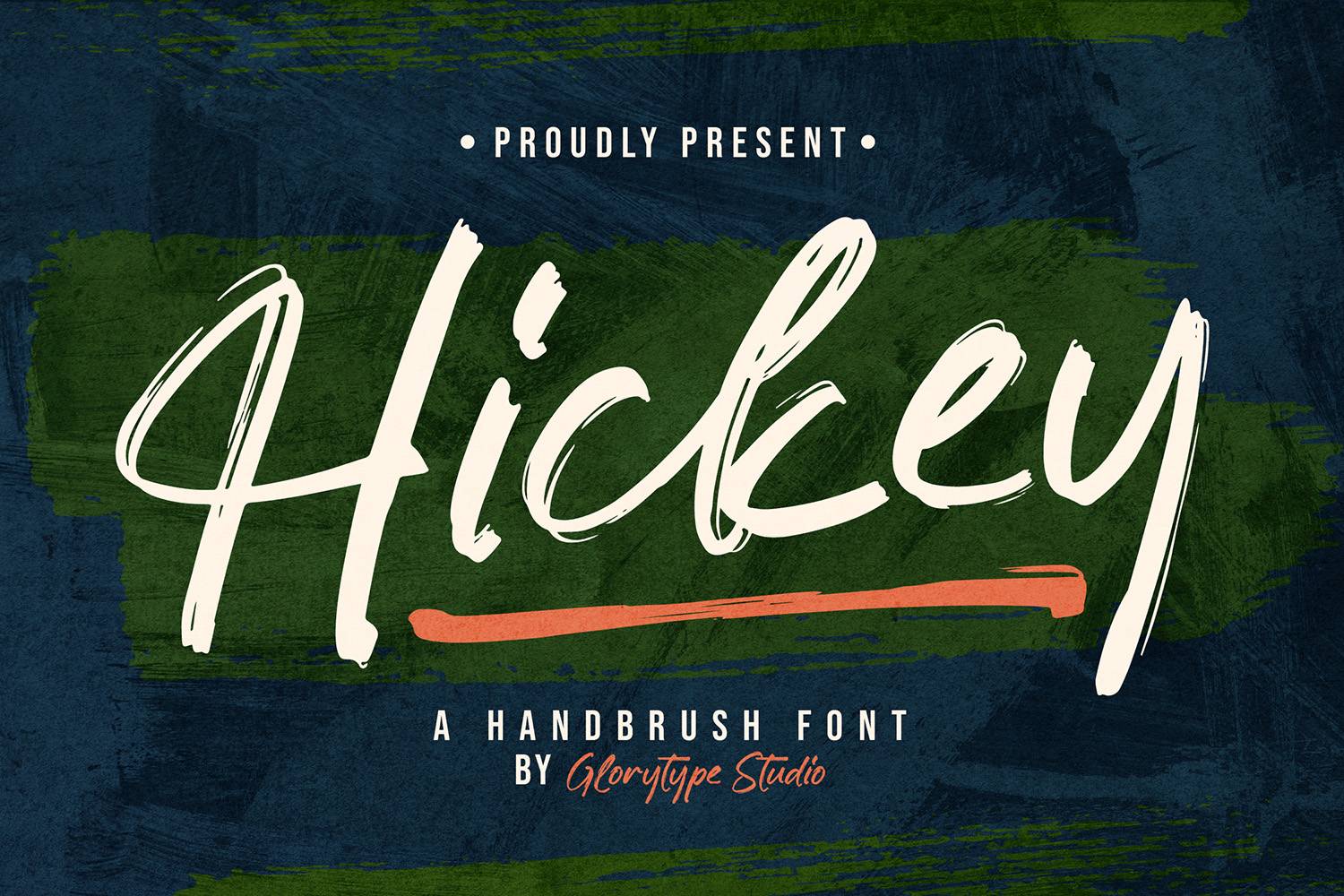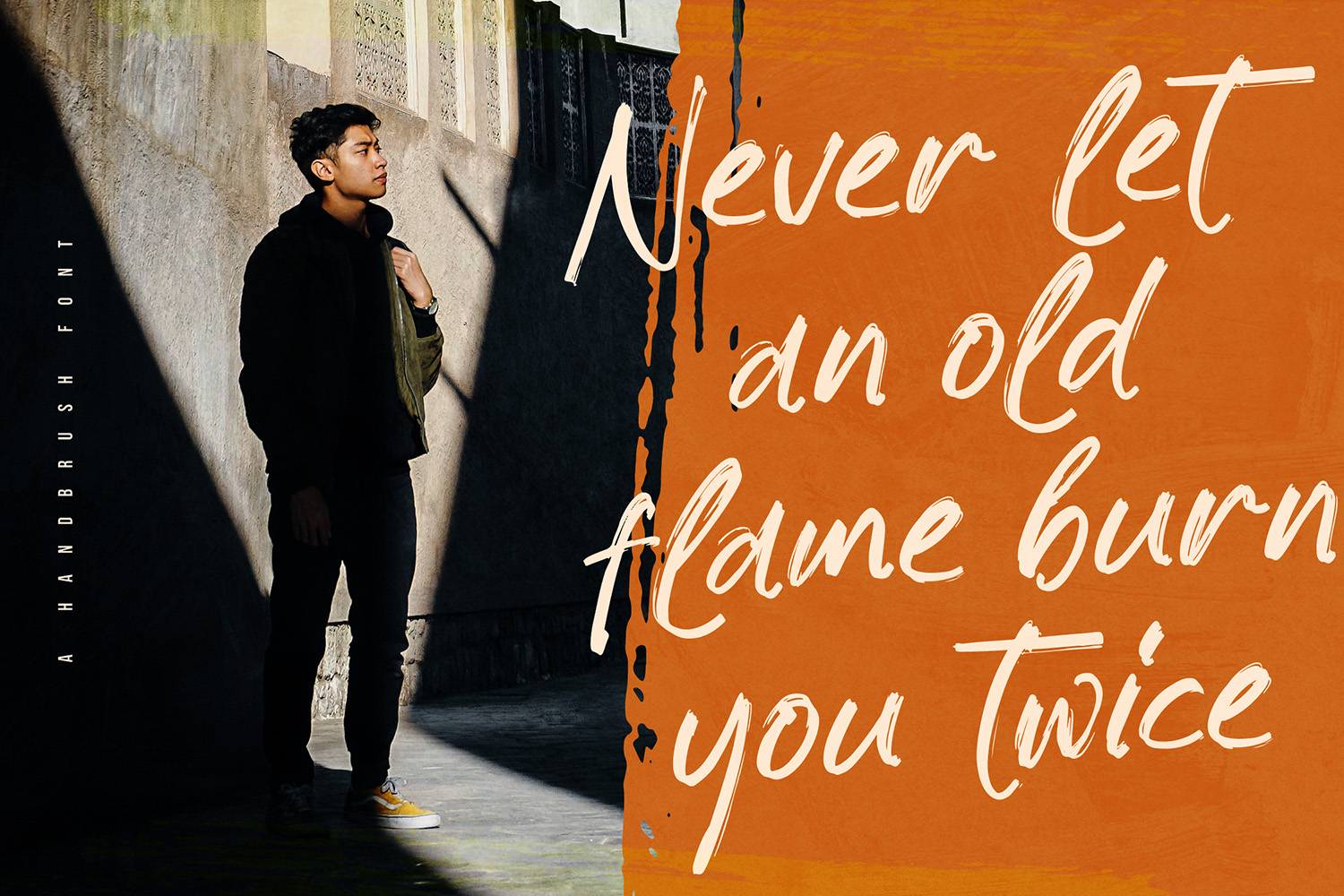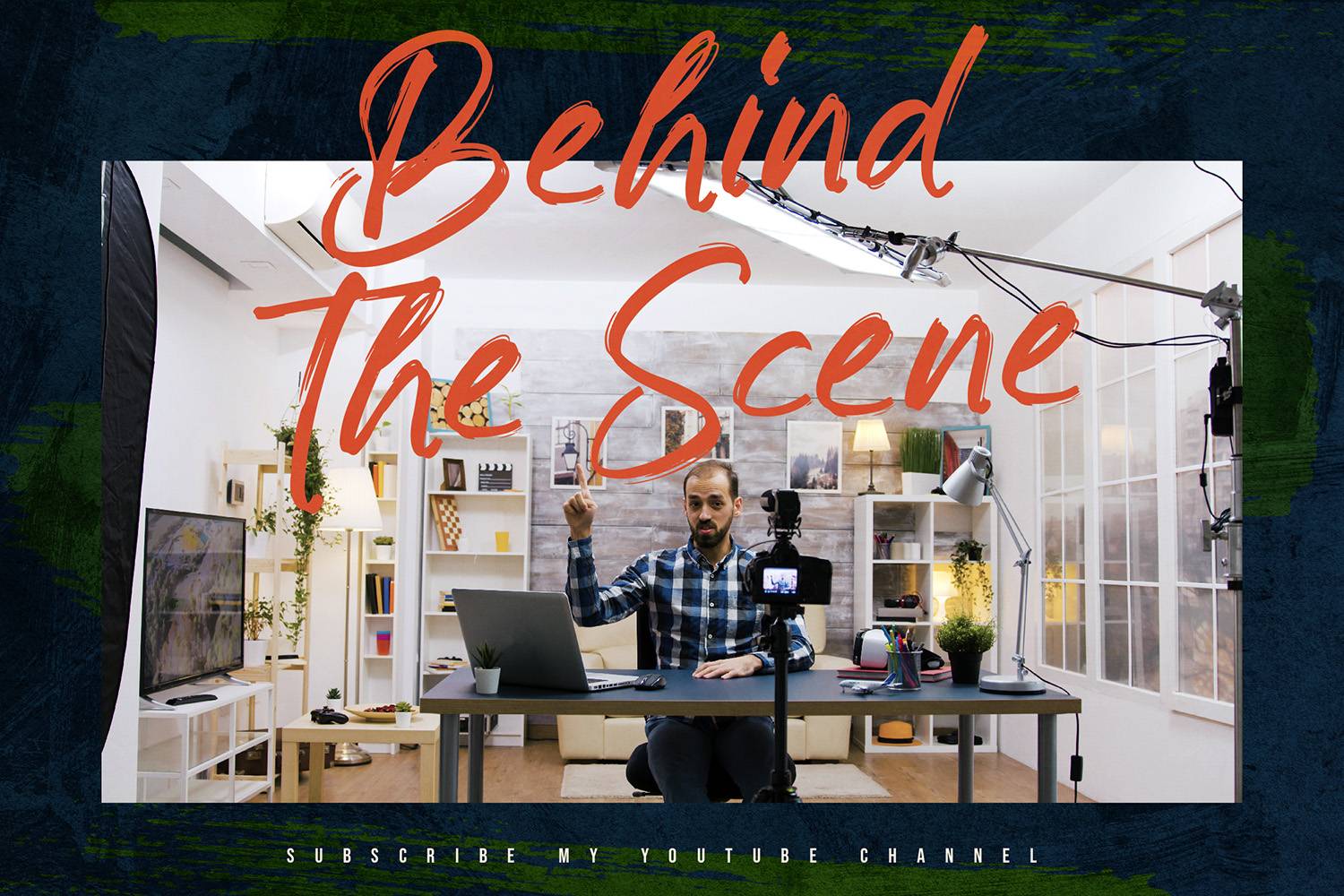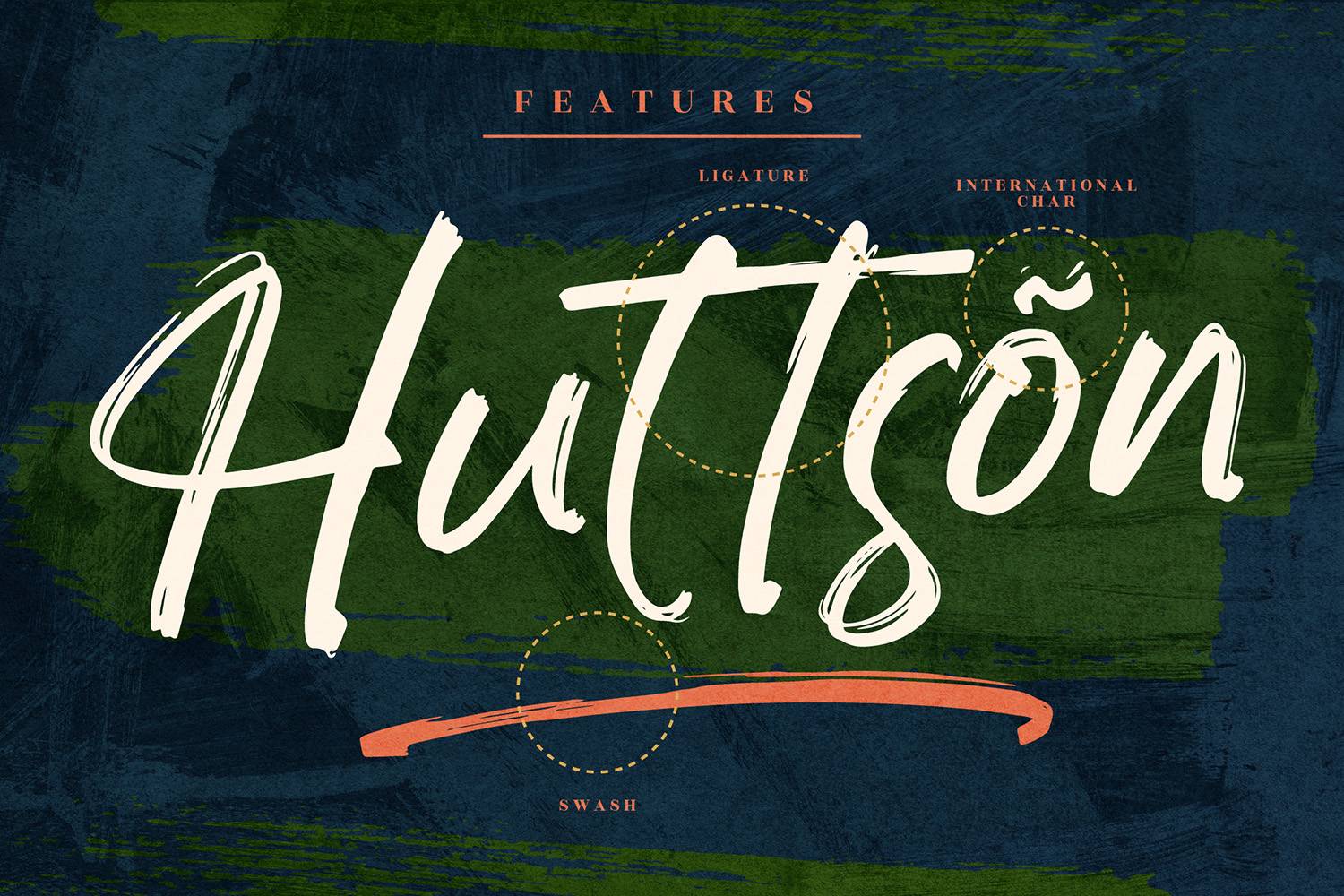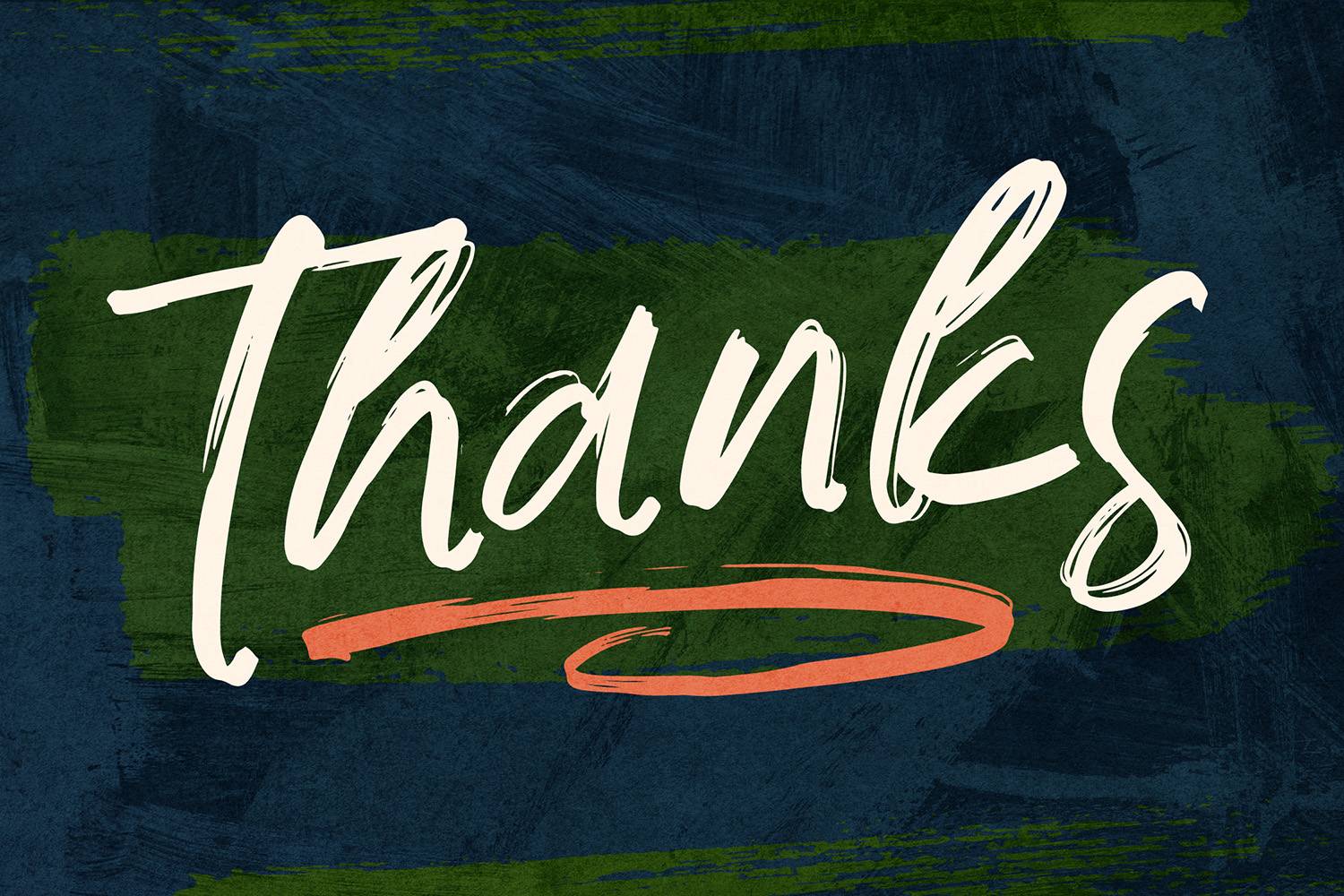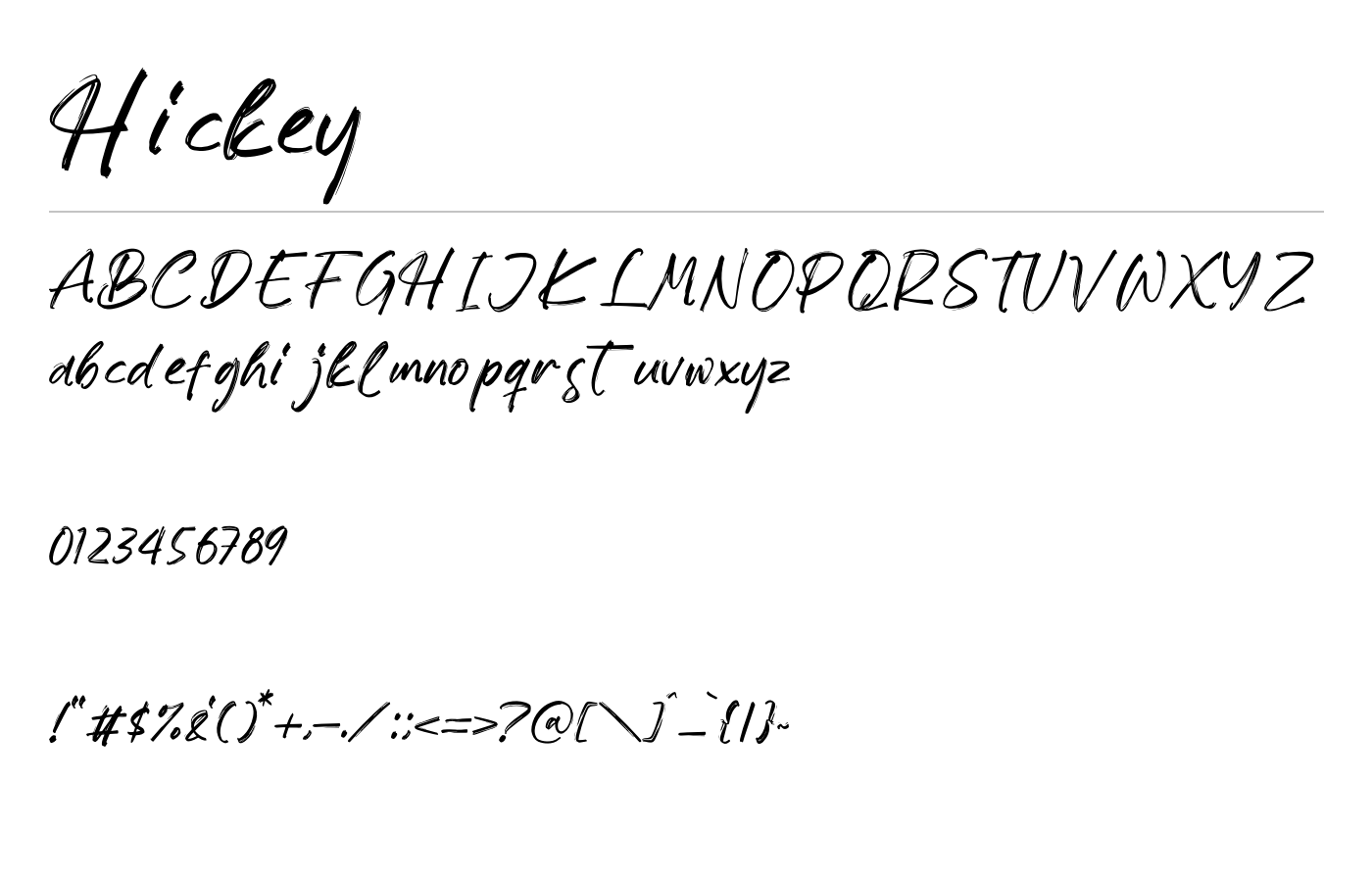
Hickey Font is a lively and expressive handwritten script with a casual, brushstroke appearance that feels personal and artistic. Its irregular, slightly rough edges and varying stroke widths give it a dynamic and energetic personality, making it ideal for creative projects, branding, and designs seeking a natural, approachable vibe. This font works well for logos, invitations, posters, and other uses where a friendly, hand-crafted touch is desired.
Hickey Font
About Hickey Font